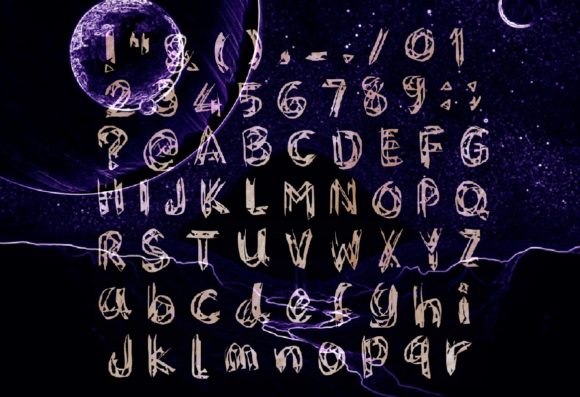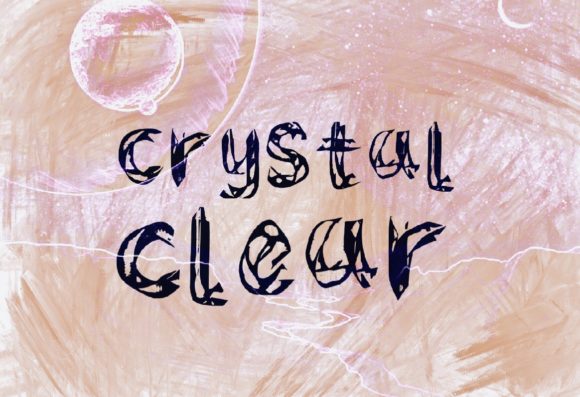
Introducing Crystal Clear: A One-of-a-Kind Hand-Painted Font with Mystic and Abstract Vibes
Are you tired of using the same old fonts in your designs? Look no further! We’re excited to introduce Crystal Clear, a unique and captivating hand-painted font that’s sure to add a touch of mystique and abstraction to your creative projects. In this article, we’ll dive into the world of Crystal Clear, exploring its features, benefits, and uses, as well as provide tips and inspiration for designers and crafters.
The Story Behind Crystal Clear
Crystal Clear is a labor of love, carefully crafted by a talented artist who poured their heart and soul into creating a truly one-of-a-kind font. With its intricate, hand-painted design, this font exudes a sense of mysticism and wonder, making it perfect for projects that require a touch of magic and whimsy.
The font’s abstract vibes are achieved through its unique blend of bold lines, delicate curves, and subtle texture, creating a mesmerizing effect that’s sure to captivate your audience. Whether you’re designing a logo, creating a poster, or crafting a social media graphic, Crystal Clear is sure to add an extra layer of depth and visual interest.
Key Features of Crystal Clear
- Hand-painted design: Each letter has been carefully crafted by hand, giving Crystal Clear a unique, organic feel that’s impossible to replicate with digital fonts.
- Mystic and abstract vibes: The font’s intricate design and subtle texture evoke a sense of mysticism and wonder, making it perfect for projects that require a touch of magic.
- Highly versatile: Crystal Clear can be used in a wide range of creative projects, from logos and posters to social media graphics and crafts.
- Easy to use: Despite its intricate design, Crystal Clear is surprisingly easy to use, making it accessible to designers and crafters of all skill levels.
Using Crystal Clear in Your Designs
So, how can you use Crystal Clear in your designs? The possibilities are endless! Here are a few ideas to get you started:
- Logos and branding: Use Crystal Clear to create a unique and memorable logo that sets your brand apart.
- Posters and flyers: Add a touch of mystique to your posters and flyers with Crystal Clear’s intricate design.
- Social media graphics: Use Crystal Clear to create eye-catching social media graphics that are sure to stand out.
- Crafts and DIY projects: Crystal Clear can also be used in a variety of craft and DIY projects, such as hand lettering, journaling, and card making.
Tips and Tricks for Working with Crystal Clear
Here are a few tips and tricks to help you get the most out of Crystal Clear:
- Experiment with different colors: Crystal Clear looks great in a variety of colors, so don’t be afraid to experiment and find the perfect hue for your project.
- Use it sparingly: Due to its intricate design, Crystal Clear can be overwhelming if used excessively. Use it sparingly to add emphasis and visual interest.
- Pair it with other fonts: Crystal Clear can be paired with other fonts to create a unique and visually appealing combination.
In conclusion, Crystal Clear is a one-of-a-kind hand-painted font that’s sure to add a touch of mystique and abstraction to your creative projects. With its intricate design, subtle texture, and highly versatile nature, Crystal Clear is perfect for designers and crafters looking to add an extra layer of depth and visual interest to their work. So why wait? Download Crystal Clear today and start creating something truly magical!